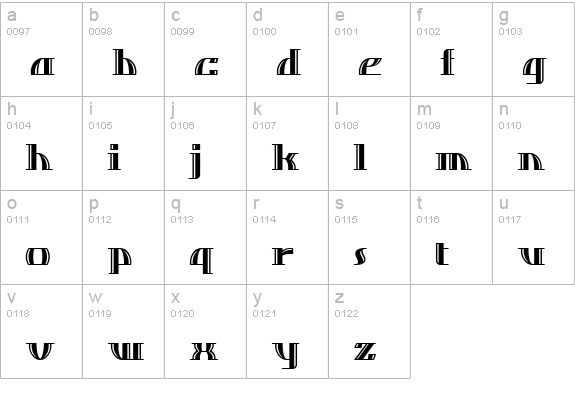
Introducing Dos Equis NF font, a distinctive and versatile typeface that exudes elegance and sophistication. With its timeless appeal and classic design, Dos Equis NF font is the perfect choice for a wide range of projects, from branding to editorial design. This font features clean lines, sharp edges, and a modern yet refined aesthetic that will make your text stand out. Whether you're crafting a logo, designing a poster, or creating a website, Dos Equis NF font will add a touch of sophistication and style to your work. Best of all, Dos Equis NF font is completely free to download at FontsMarket.com. This means you can access this high-quality typeface without any cost, making it a valuable resource for designers, creatives, and anyone looking to elevate their projects with a touch of elegance. Don't miss out on the opportunity to enhance your designs with Dos Equis NF font - download it for free today at FontsMarket.com and elevate your creative endeavors to new heights!